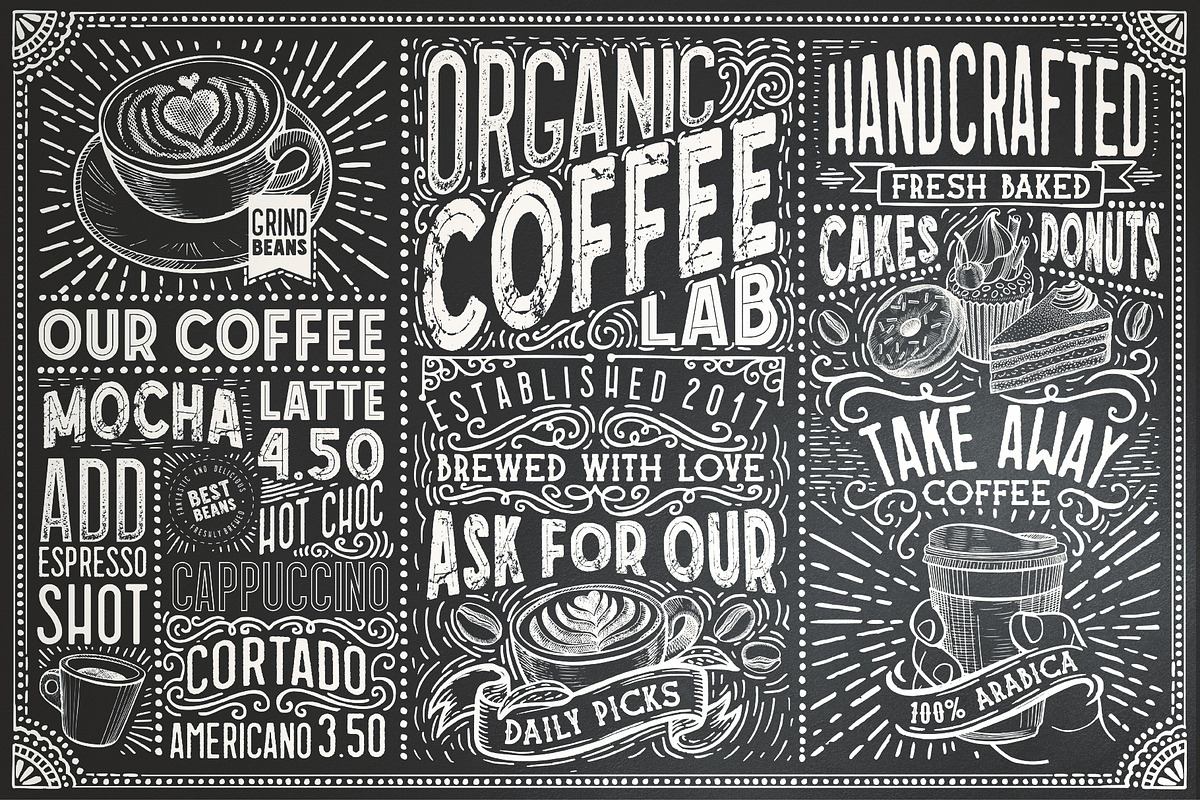
The 15 Fonts Coffee Lab Collection is a curated set of typefaces designed to bring a vintage and handcrafted feel to your projects. This collection encompasses various styles, including vintage, rough, rounded, outline, and inline, making it versatile for different design needs.
Diverse Styles: The collection includes fonts with vintage, rough, rounded, outline, and inline styles, offering flexibility for various design aesthetics.
Comprehensive Character Set: Each font provides uppercase letters, punctuation, numbers, special characters, and multilingual support, accommodating a wide range of design requirements.
Ideal Uses:
This font collection is particularly well-suited for projects that aim to evoke a vintage or artisanal feel, such as:
Branding and Logos:
Packaging Design:
Posters and Flyers:
Menus and Signage:
Incorporating fonts from the Coffee Lab Collection can add a distinctive and handcrafted touch to your design projects, enhancing their visual appeal with vintage charm.